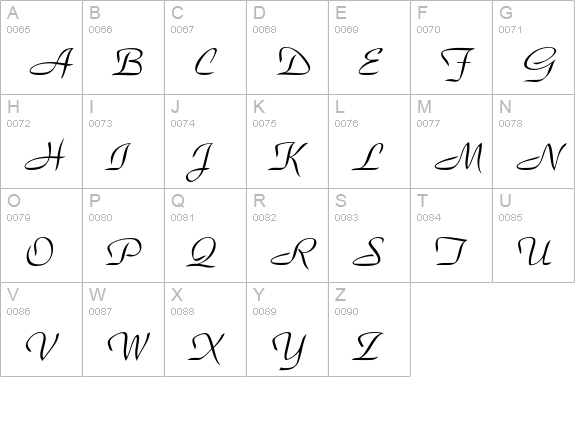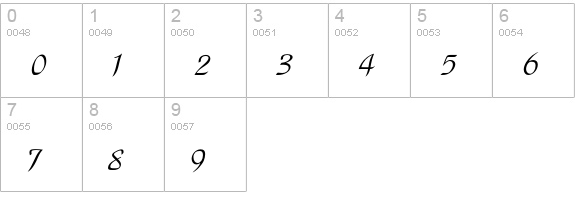
ParkAvenueEF is a stunningly elegant font that exudes sophistication and class. With its clean lines and stylish curves, this font is perfect for adding a touch of luxury to any project. Whether you're designing a wedding invitation, a logo for a high-end brand, or a magazine layout, ParkAvenueEF will elevate your design to new heights. What sets ParkAvenueEF apart is not only its beauty but also the fact that it is freely available to download at FontsMarket.com. This means that you can enhance your designs without having to spend a dime. It's a font that offers both style and accessibility, making it a must-have for designers of all levels. The versatility of ParkAvenueEF is another standout feature. It can effortlessly transition from bold headlines to delicate script effortlessly, allowing you to create a cohesive and visually striking design. Its legibility is second to none, making it suitable for a wide range of applications, from print to digital media. ParkAvenueEF is the epitome of timeless elegance. Its timeless appeal ensures that it will never go out of style, making it a valuable addition to any designer's toolkit. Its effortless beauty and versatility, combined with its free availability on FontsMarket.com, make ParkAvenueEF a font that no designer should be without. So why wait? Download ParkAvenueEF today and take your designs to the next level.